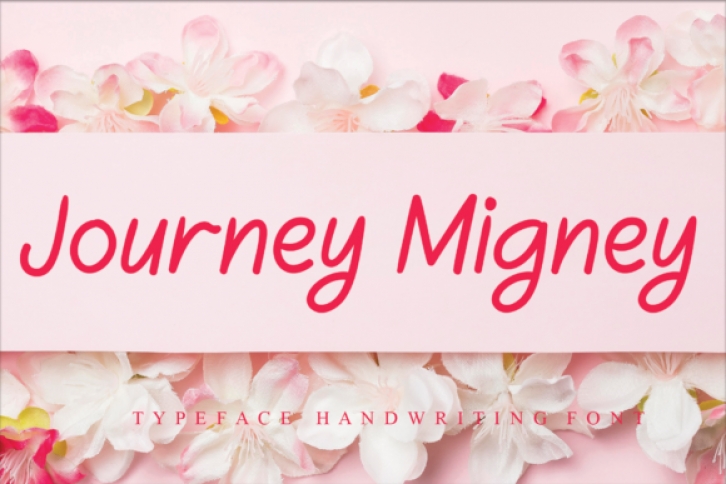
Journey Migney is a sweet and delicate handwritten font. It has beautiful and well balanced characters and as a result, it matches a wide pool of designs. Add it to your most creative ideas and notice how it makes them come alive!